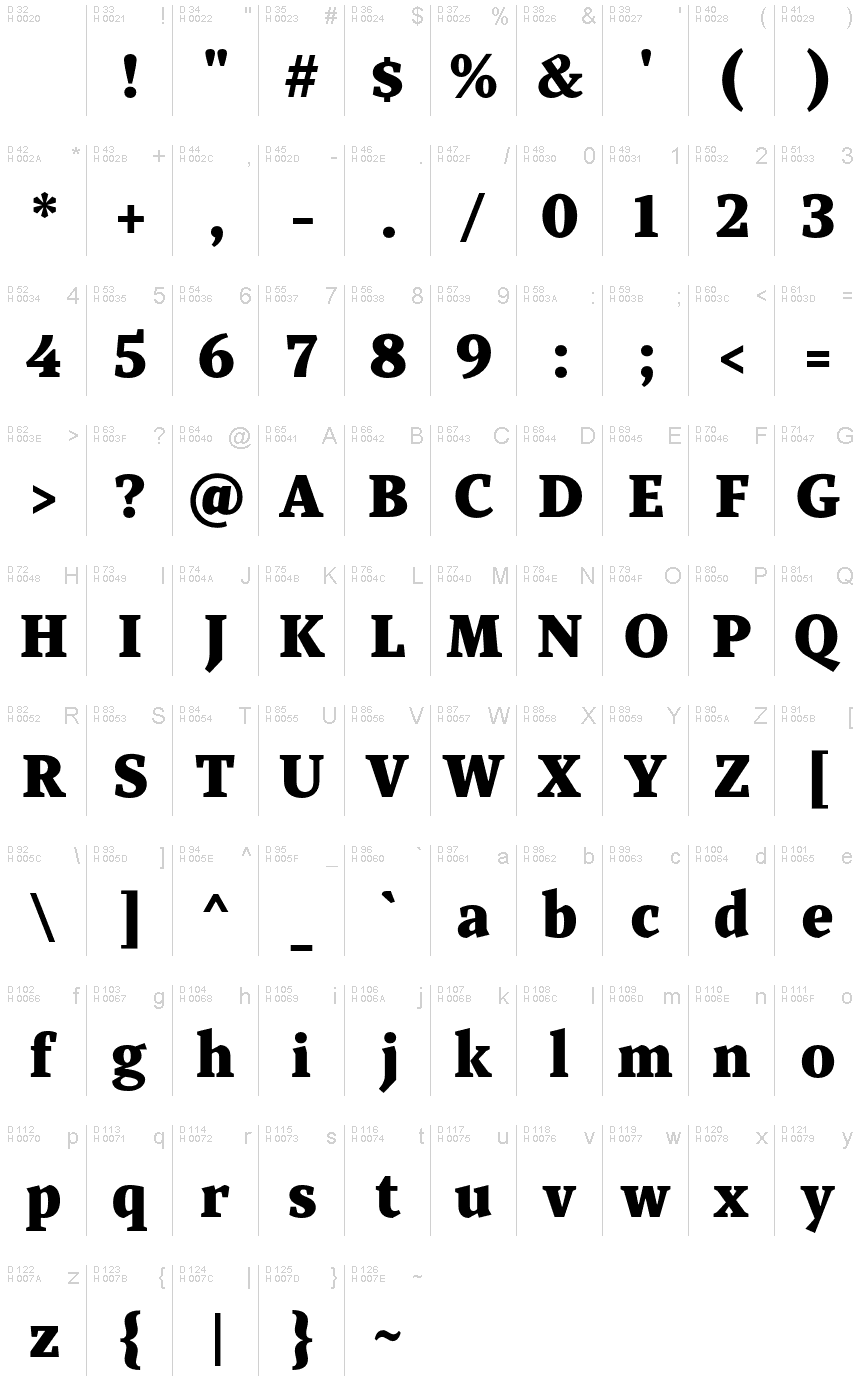
TT Bells Trial Black
TT Bells Black is a bold and beautiful serif font that will elevate any project it's used in. Created by TypeType Foundry, this extra-bold typeface exudes sophistication and elegance while packing a powerful punch. Its unique design features sharp, angled serifs that add a touch of modernity to its classic look. This font is perfect for luxurious branding projects such as high-end fashion or jewelry lines, as well as editorial design for magazines and newspapers. TT Bells Black can also be used for packaging design, book covers, and even wedding invitations to give your project an air of refinement.